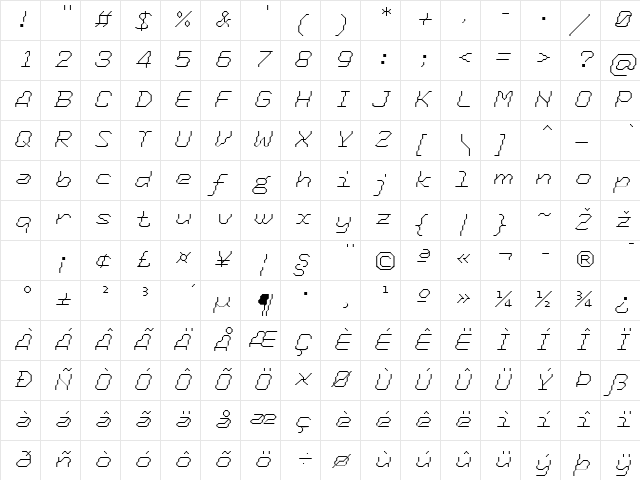
TronicLF-LightItalic Regular Font Preview
| Foundry | Hyun Cho, Sung Min Choi; published by FontShop International for the FontFont Library |
| Designer | Hyun Cho, Sung Min Choi |
Design Context for TronicLF-LightItalic Typeface
TronicLF-LightItalic takes a measured approach to typography — its balanced proportions and neutral character make it a reliable workhorse for both digital and print work. The dynamic lean of this cut emphasises speed and emphasis in any layout. Its slender proportions lend an understated elegance to any composition.